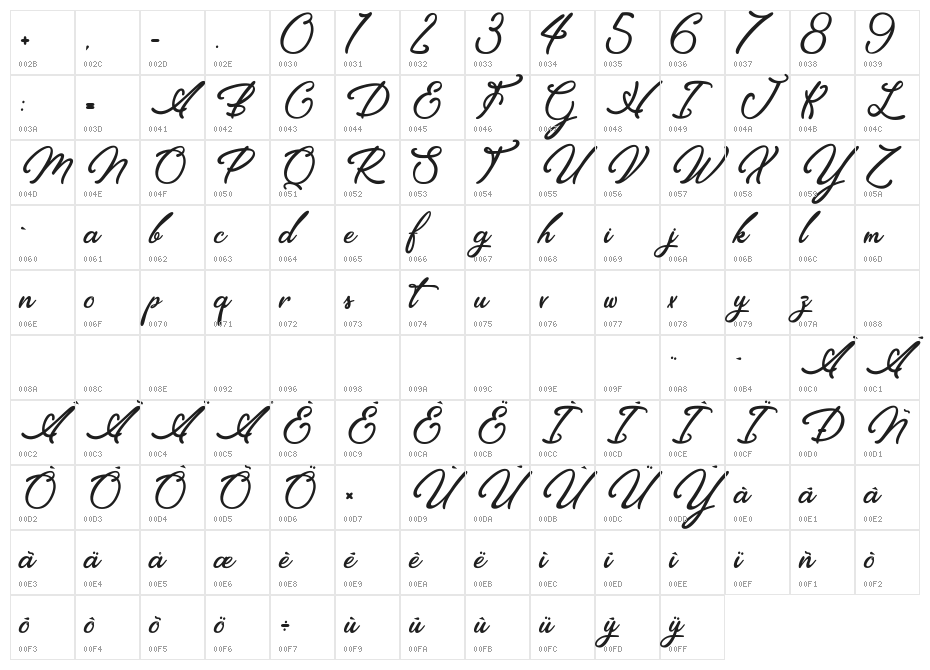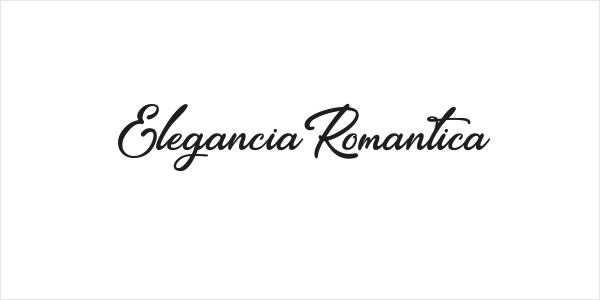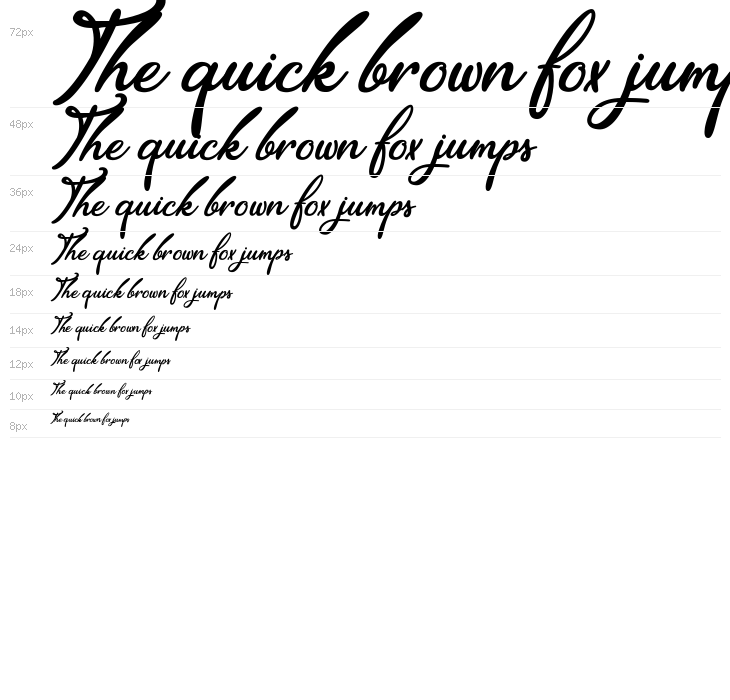
EleganciaRomantica Font
EleganciaRomantica Description
This font exudes elegance and romance with its flowing, cursive style. The uppercase letters are gracefully connected, featuring delicate loops and flourishes that add a touch of sophistication. The lowercase letters maintain a consistent flow, with smooth curves and a slight slant that enhances readability. The numerals are stylishly designed, complementing the overall aesthetic with their rounded forms. Special characters are thoughtfully integrated, maintaining the font's cohesive look. This font is perfect for projects that require a touch of elegance and charm.
| Overall Style | Romantic, Elegant |
| Use Case | Headlines, Invitations, Branding |
| Proposed Projects | Ideal for wedding invitations, romantic greeting cards, elegant branding, and high-end product packaging. |